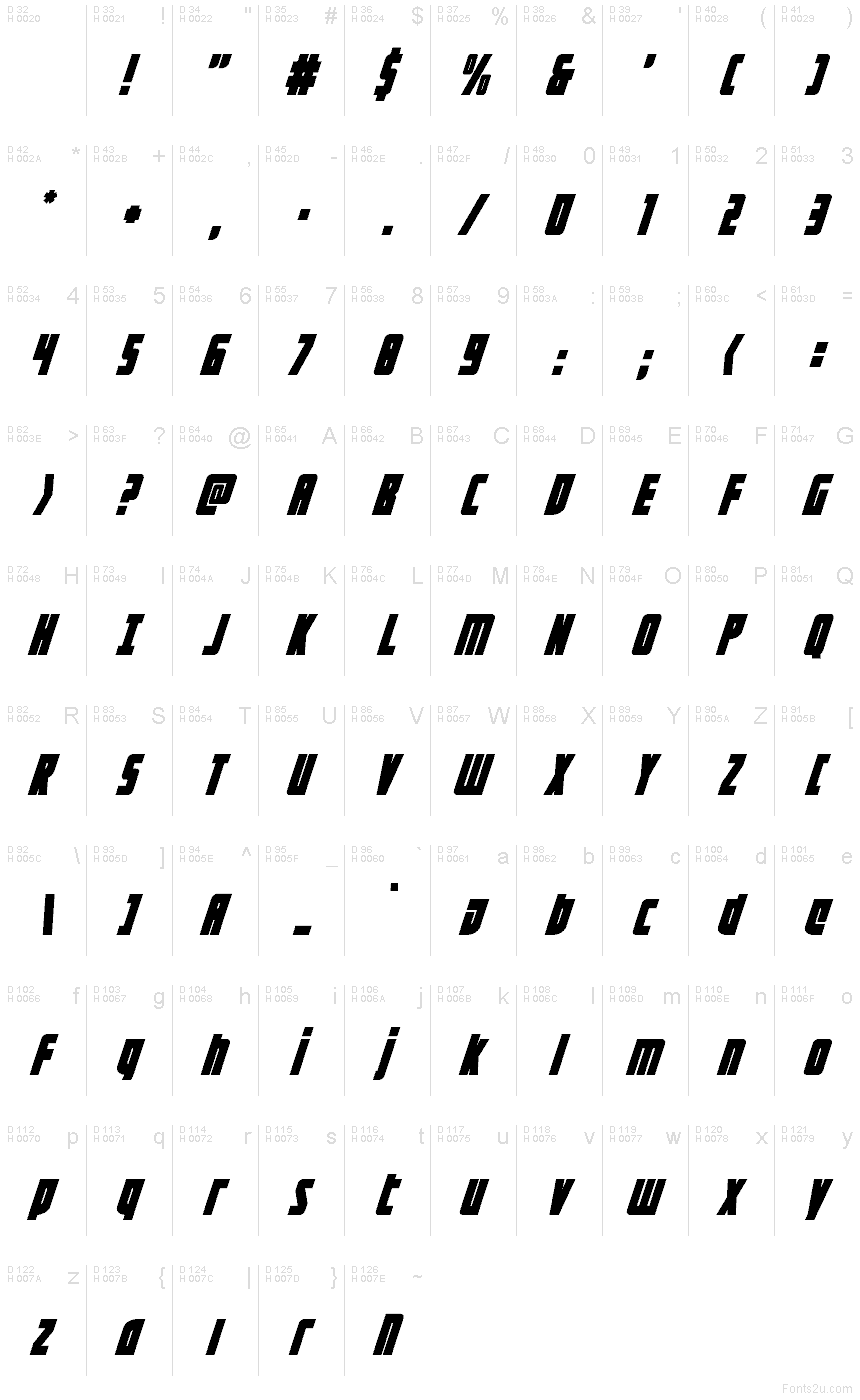
Impact Wrench Spaced Italic
Impact Wrench Spaced Italic font by Iconian Fonts is a display font with a futuristic and geometric style. The condensed structure enhances its modern feel, while the streamlined and tall angular shape provides it with its strong presence. It achieves more impact and emphasis wherever used.
Usages are unlimited as this free display font finds applications in sports and Esport logo designs, branding, magazines, game interfaces, teams' jerseys, music album covers, book covers, website headings, advertisements folders covers animation videos intros and much more.